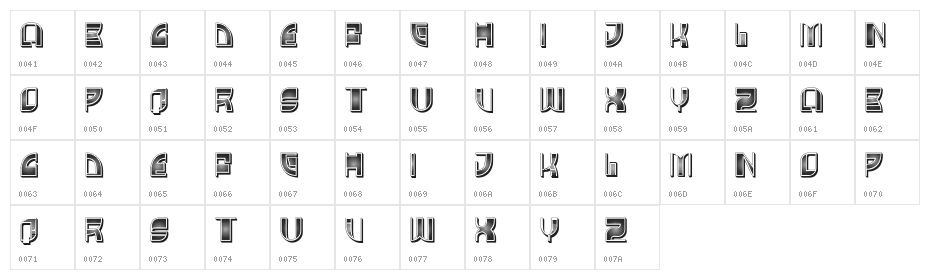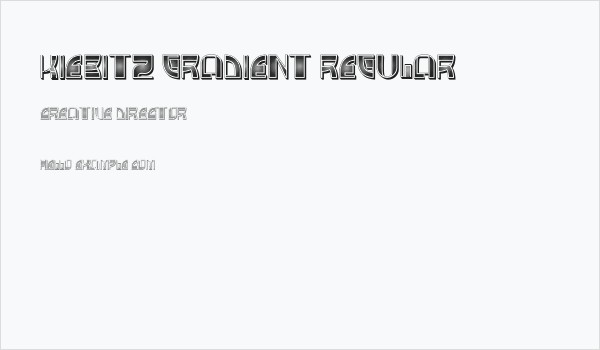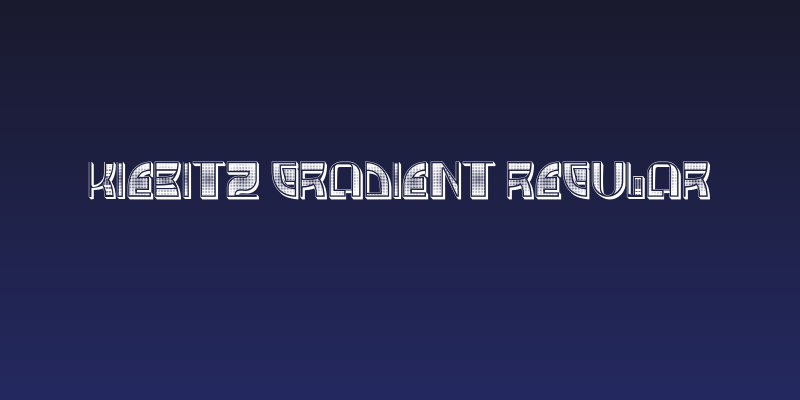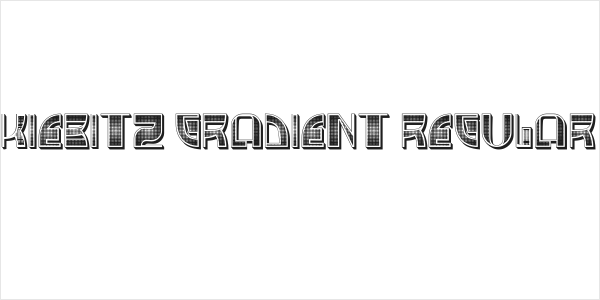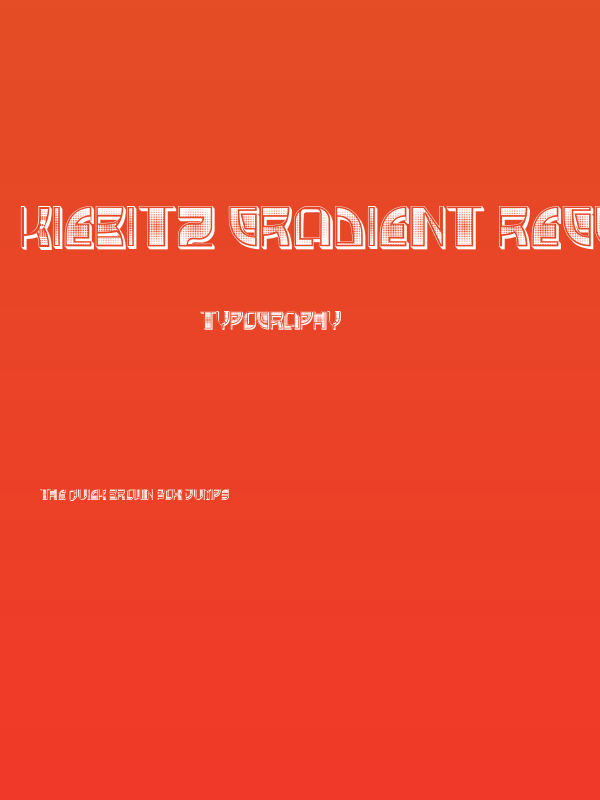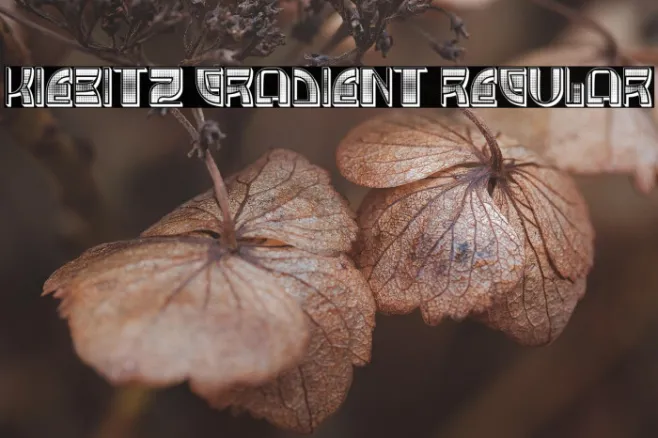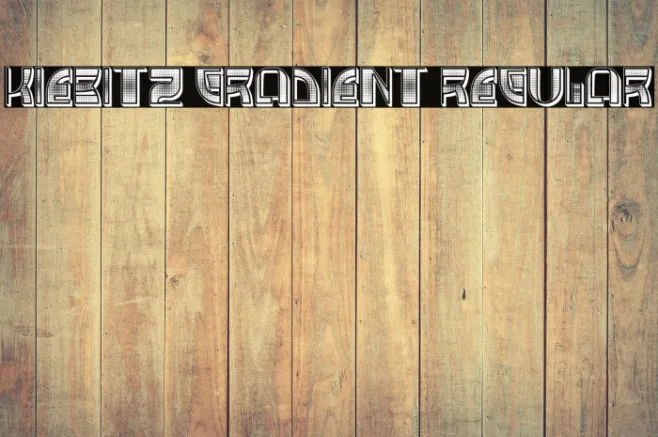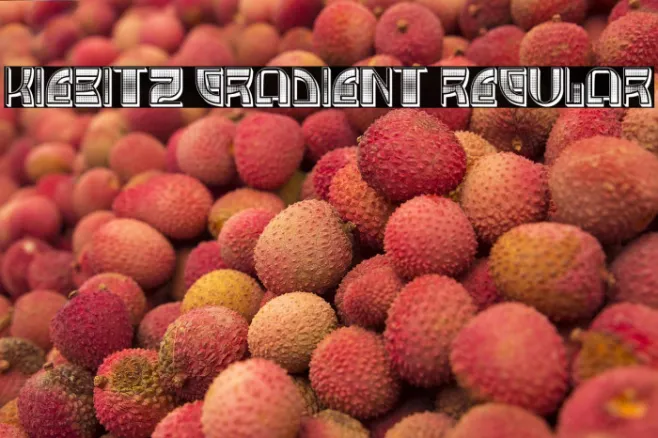
Kiebitz Gradient Regular Font
Kiebitz Gradient Regular Description
This font features a bold, decorative style with a unique gradient effect that gives it a three-dimensional appearance. The characters are outlined with a thick border, enhancing their visibility and adding a sense of depth. The interior of each letter is filled with a dotted pattern, contributing to its modern and dynamic look. The overall design is highly stylized, making it suitable for eye-catching headlines and creative projects. The uppercase letters are uniform in height, and the spacing between characters is consistent, ensuring readability despite the intricate design.
| Proposed Projects | This font is perfect for use in posters, advertisements, branding, and any project that requires a bold, attention-grabbing typeface. |